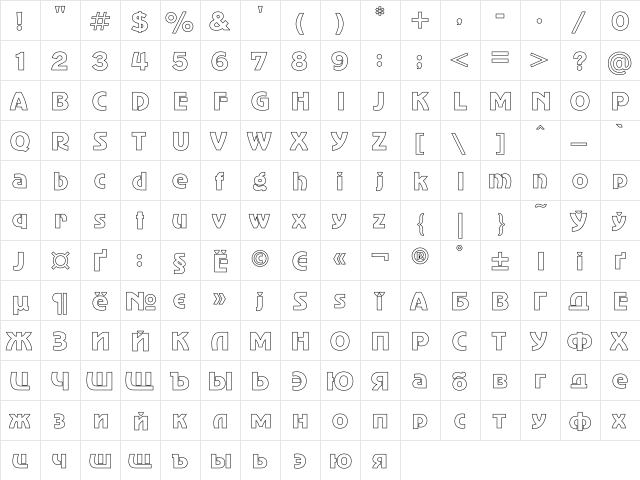
AdverGothic Ho Regular
Design Context for AdverGothic Ho Typeface
AdverGothic Ho has the quiet confidence of well-executed sans-serif typography: versatile, unobtrusive, and dependable at any size.
Font Pairing: Works well alongside a characterful serif or display font that can carry the expressive load while AdverGothic Ho handles the functional copy.
Pro Tip: Use AdverGothic Ho for UI labels, navigation, and short-form body copy where clean legibility is the priority.